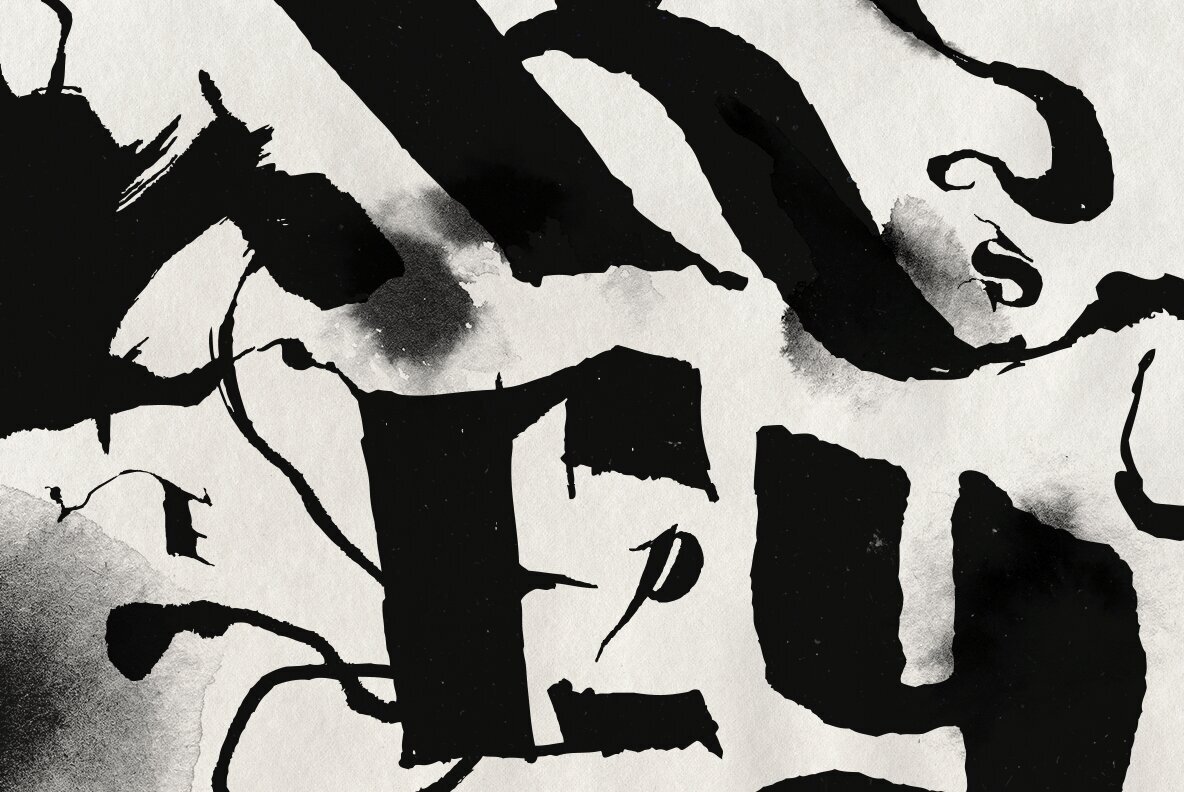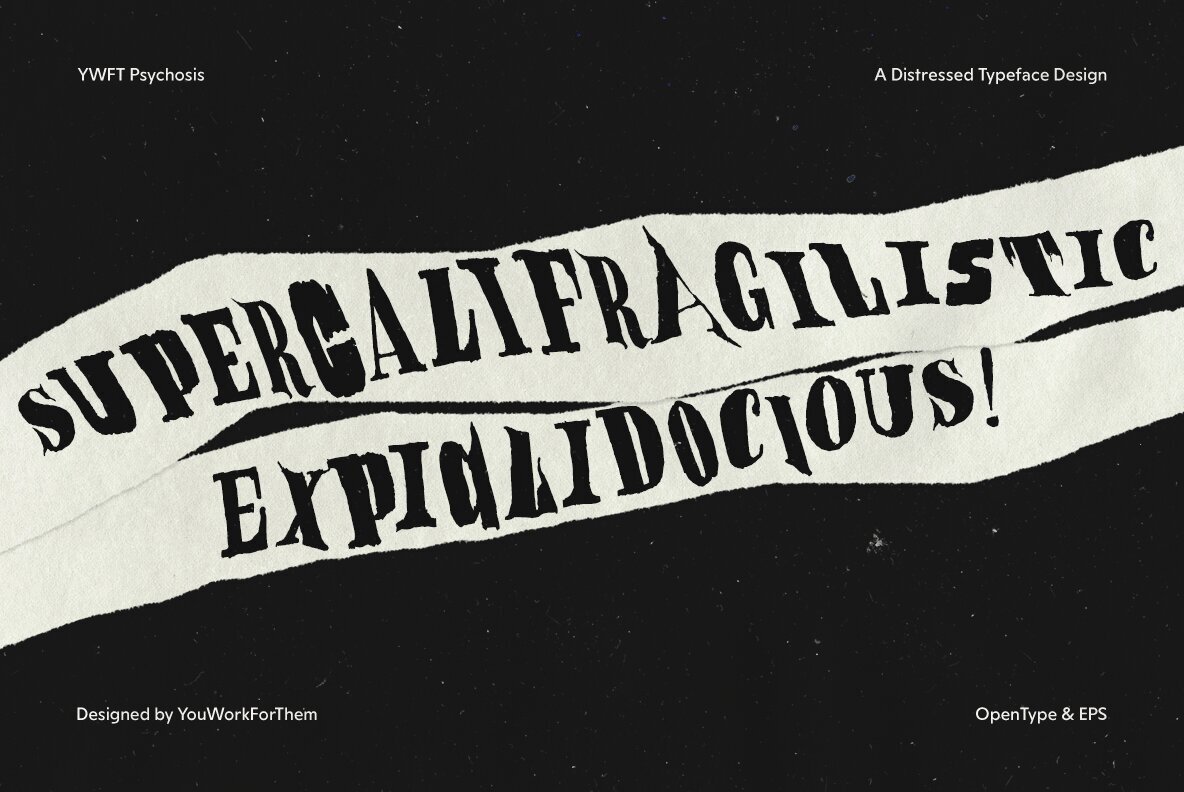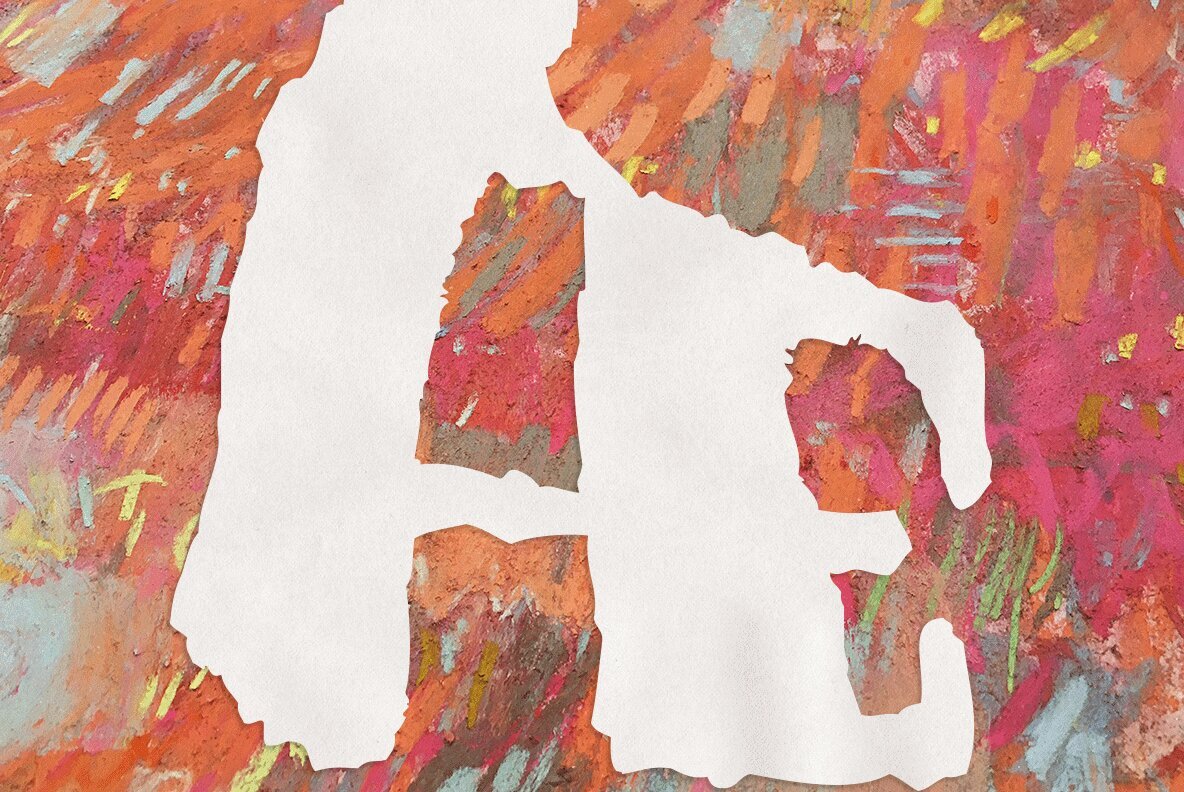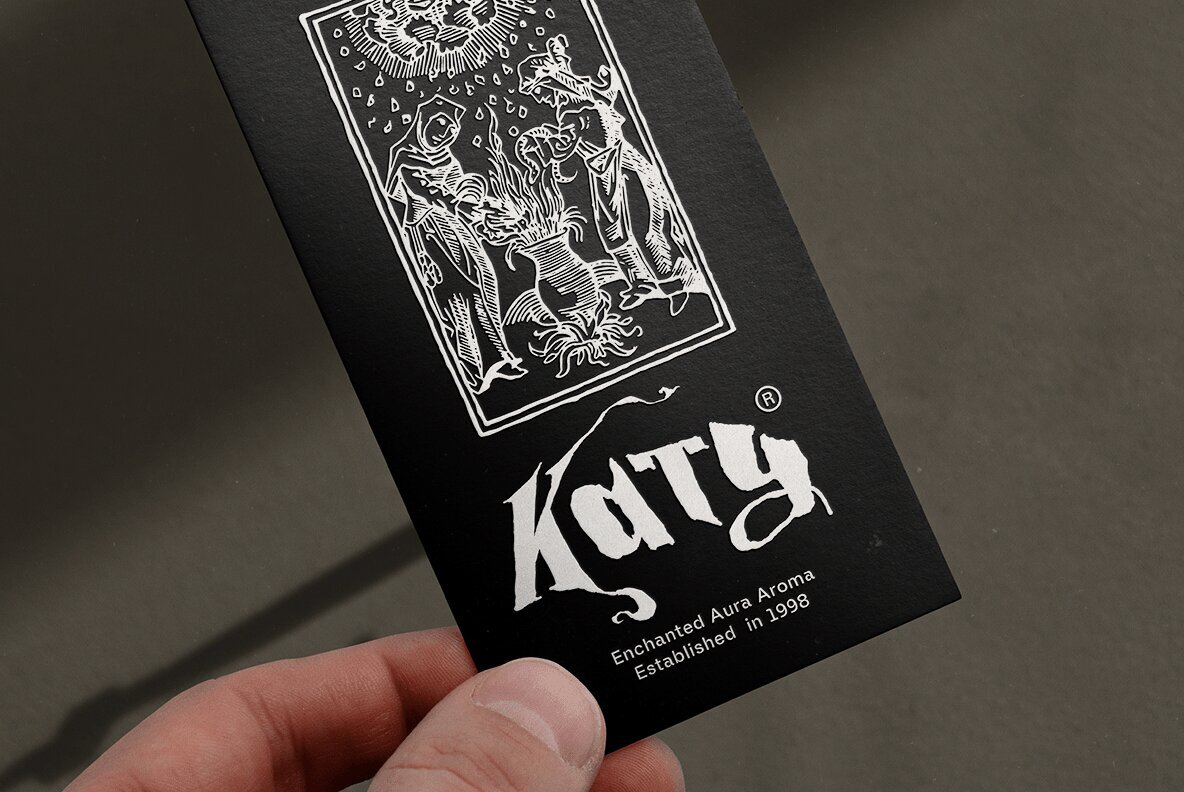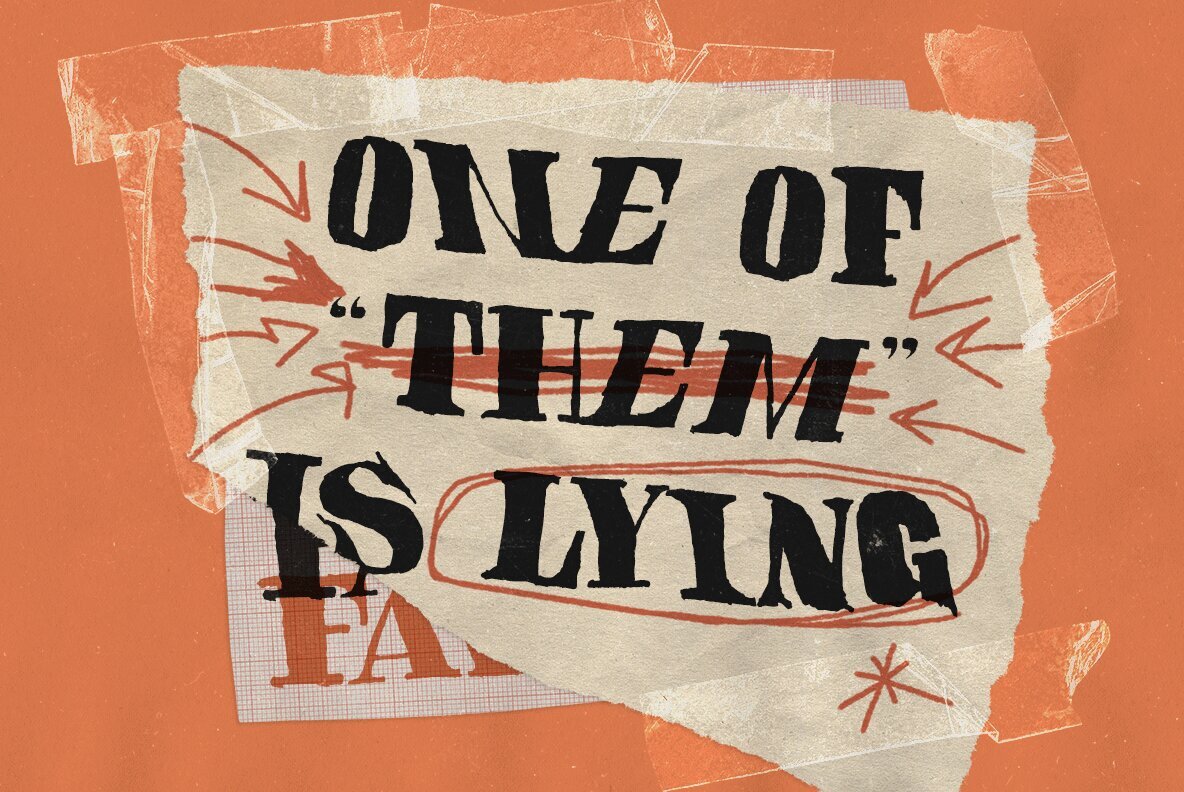
Some folks say we're too prone to hyperbole in these font descriptions, but we can't help ourselves some times. And this is one of those times. YWFT Psychosis is THE CRAZIEST OpenType font we have ever released. No joke, you will swear that the OpenType controls themselves are possessed of a human brain as they change and morph about you. (No surprise there, since it was the Shaolin type-monks at PintassilgoPrints that took care of the business.)
This is a monster, with a deep emotional character too modern to be evil, yet too peripheral to be fully kind. Any situation where darkness or mystery needs to be heralded, let this Psychosis take over.
YWFT Psychosis consists of 441 Glyphs and 2 free eps handset files, including the original eps handset file, containing tons of extra flourishes and various gorgeous debris. Stylistic alternates, contextual alternates, and numerous style sets abound, for use in Adobe InDesign/Illustrator.